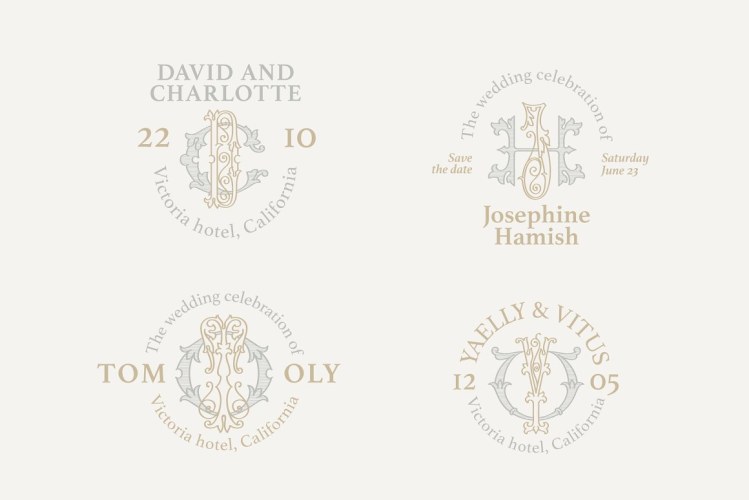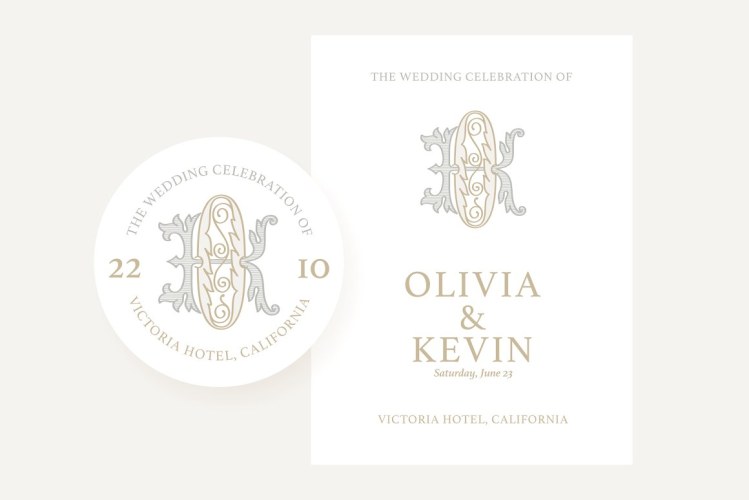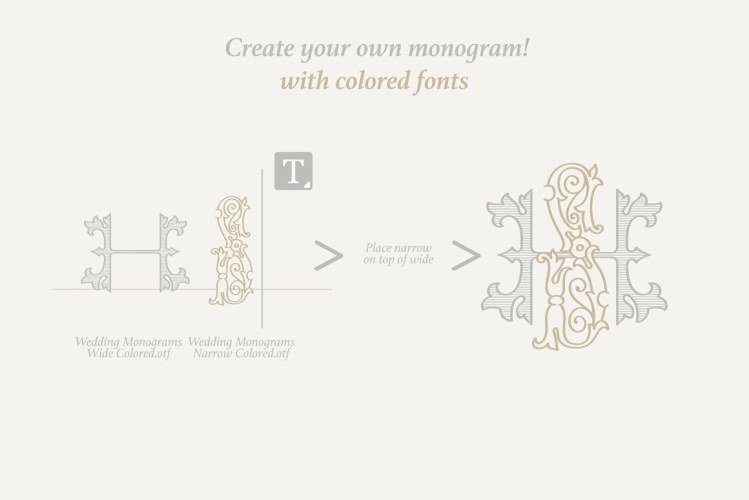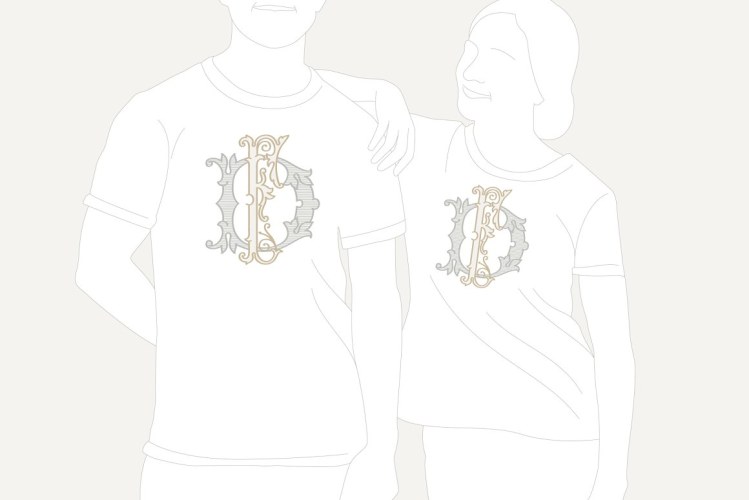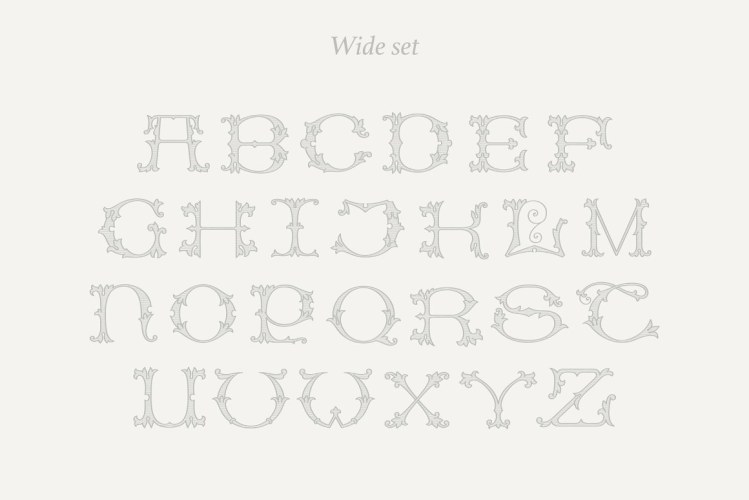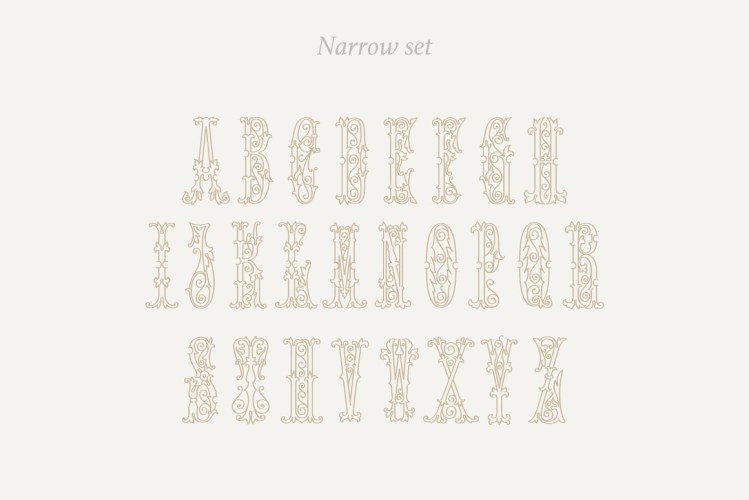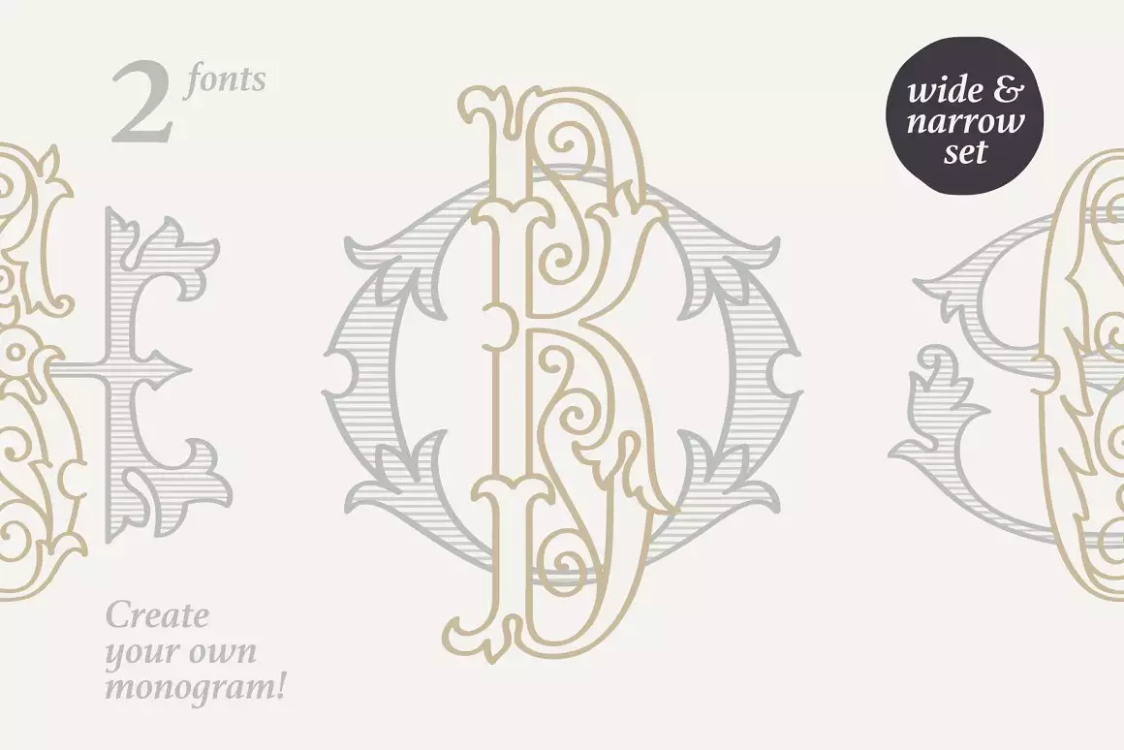
Wedding Monograms Fonts Set
Wedding monograms is a font family in elegant historical style. This family of two character monograms was inspired by “Course of women’s needlework” published in 1887.…
Wedding monograms is a font family in elegant historical style. This family of two character monograms was inspired by “Course of women’s needlework” published in 1887.
You’ll get the set includes Wide and Narrow capitals, so you can make your own monogram, by combining letters you want. +SVG files as well.
Where Wedding Monograms Fonts Set works best
Wedding Monograms Fonts Set is built for size: event posters, hero headlines and billboard-style layouts.
High contrast display type like Wedding Monograms Fonts Set reads instantly in thumbnails and motion graphics.
What is Wedding Monograms Fonts Set good for?